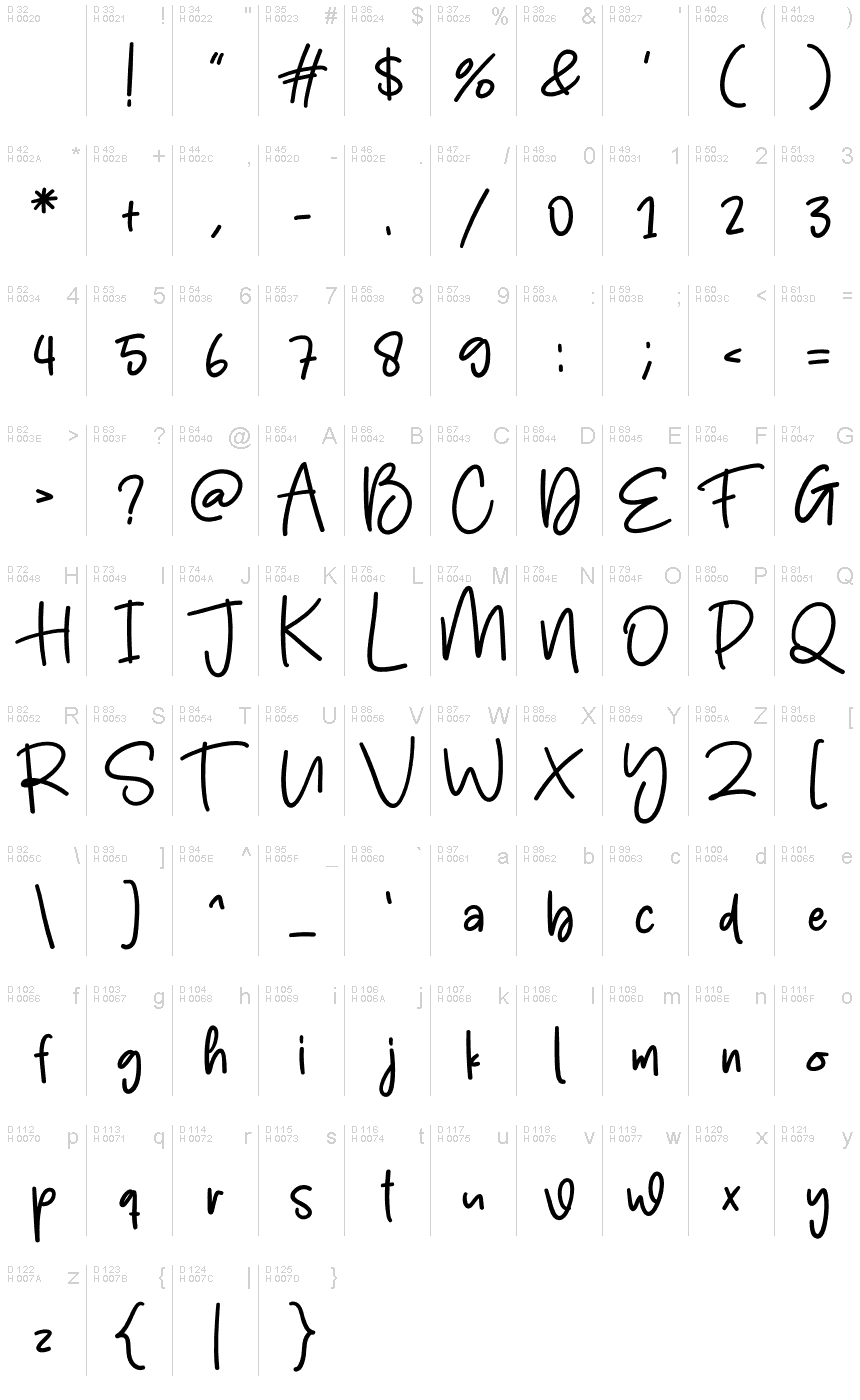
Chubby And Sweet
Chubby and Sweet, designed by Scratchones, is a semi-light handwritten font that brings creativity and elegance to your projects. This popular script font is perfect for both formal and informal designs, adding a modern touch with its beautiful creative strokes.
Whether you're creating invitation cards, letterheads, website logos, or social media posts, this font will make your products stand out. Its versatility makes it suitable for banners, advertisements, brochures, packaging products, leather goods—you name it! By using Chubby and Sweet, your products will exude luxury, elegance, and attractiveness. With a complete set of upper and lowercase letters, numbers, punctuation marks, and ligatures included in this font package—everything you need is at your fingertips.
The latest style letters are perfect for wall displays, wedding invitations, social media post logos, advertisements, product packaging, product designs, labels, photography, watermarks, invitations, stationery, and any project that requires taste handwriting.